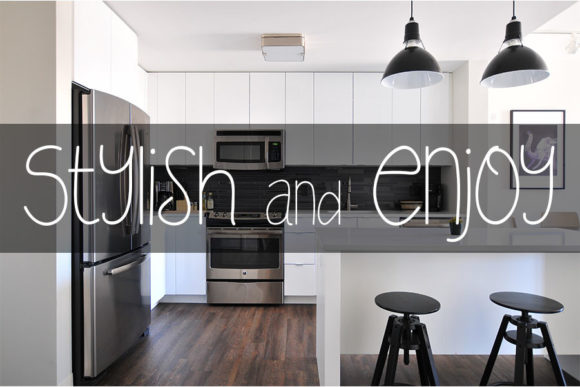
About Hilarious Font
Hilarious is designed in a cute and friendly handwritten sans serif font style. It would be awesome for your projects or diary planner. Try it for your perfect projects such as back-to-school, weddings, party decorations, invitations, Fall, Halloween, Christmas, posters, blogs, clothing, child-related designs, greeting cards, social media posts, or anything that needs a friendly touch. Add it now to your fonts library, and it will bring any of your DIY projects to life.